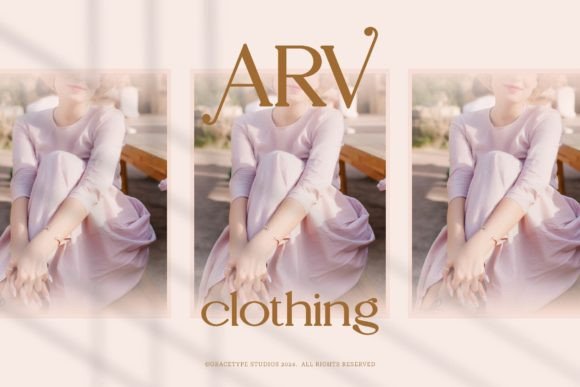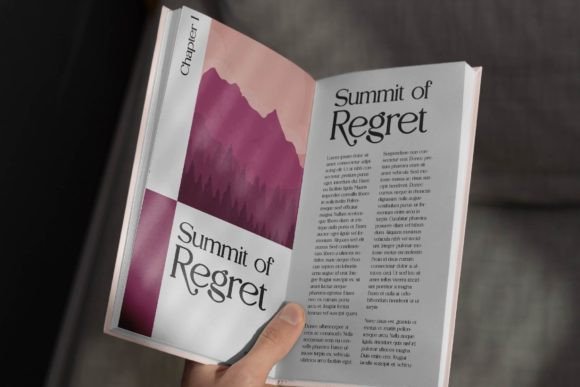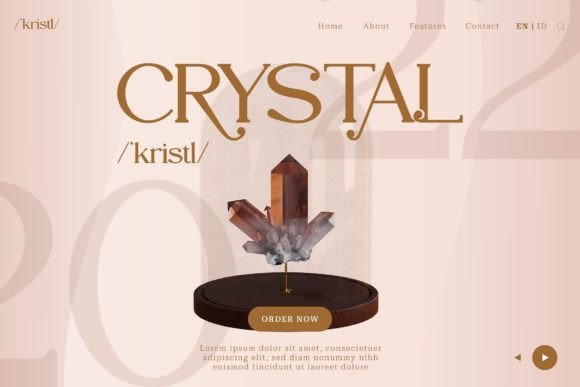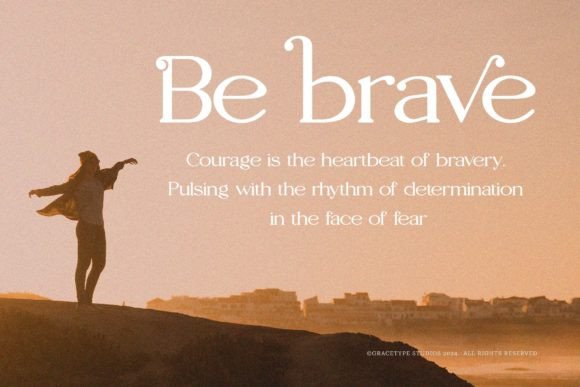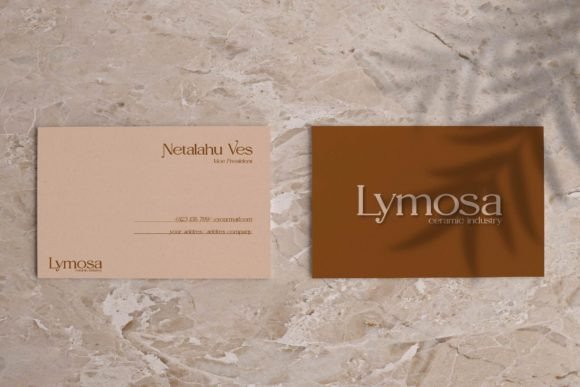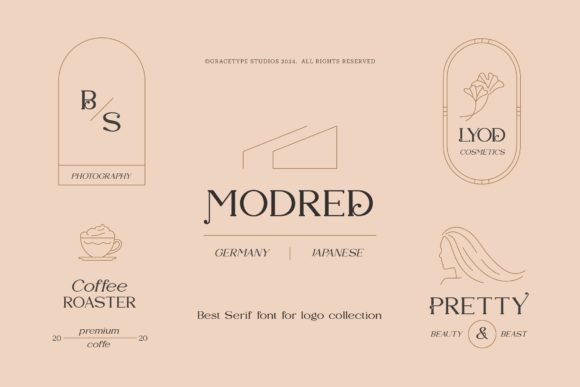
Introduction to Rukoyah Font
Remember that moment when you stumble upon a design element that just clicks with your vision? For many designers, that moment is when they discover the perfect font to elevate their creative project. For those who’ve been on the hunt, we’re excited to introduce the Rukoyah Font, a high-quality serif font that’s about to become your go-to design resource.
With its clean and elegant style, Rukoyah Font seamlessly combines classic serif details with a fresh, contemporary look. This versatile font is perfect for both formal and creative designs, offering a sophisticated feel that’s ideal for logos, headlines, and branding projects. And the best part? You can download it for free, making it an invaluable asset for designers of all levels.
- Features a unique and stylish design, perfect for adding a touch of elegance to any project.
- Designed as a versatile design resource, ideal for use in logos, branding, and other creative projects.
Honest Review: Rukoyah Font
I recently stumbled upon the Rukoyah Font, and I’m excited to share my thoughts on this high-quality design resource. As a designer, I appreciate fonts that can elevate my creative projects and give them a unique touch.
Here are some things that work well with the Rukoyah Font: ✨ It’s completely free to download, which is a huge plus in my book. The font is also highly versatile, making it suitable for a wide range of design applications. The transparent background is a nice feature, as it allows me to easily layer the font over other design elements.
Some potential limitations to keep in mind: ⚠️ The font is a bit on the thin side, which can make it harder to read at smaller font sizes. Additionally, the font’s styling is quite modern, so it may not be the best fit for more traditional or conservative design projects.
Overall, I’m really impressed with the Rukoyah Font. It’s a solid addition to any designer’s toolkit, and I appreciate the fact that it’s free to use. If you’re looking for a high-quality font to add some flair to your creative project, I’d definitely recommend giving Rukoyah a try.
The Rukoyah Font is a versatile design resource that can be used in a variety of creative projects, including logos, social media graphics, and presentations. Its high quality and transparent background make it ideal for use in digital designs.
Great Vibes Font is a great alternative to Rukoyah Font as it offers a more refined and elegant look. While Rukoyah Font is more playful, Great Vibes Font is ideal for formal and professional designs.
Alex Brush Font is a great alternative to Rukoyah Font as it offers a more personal and handwritten look. While Rukoyah Font is more modern, Alex Brush Font is ideal for designs that require a more emotional connection.